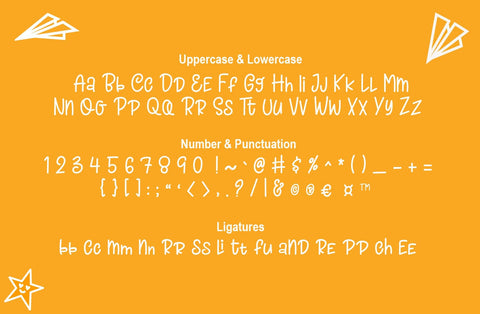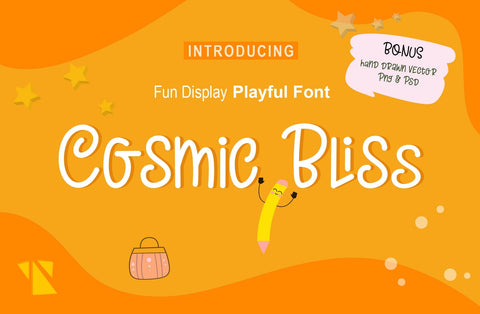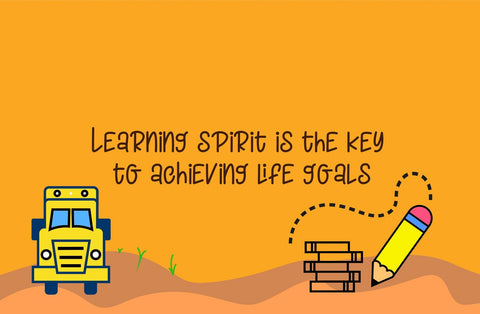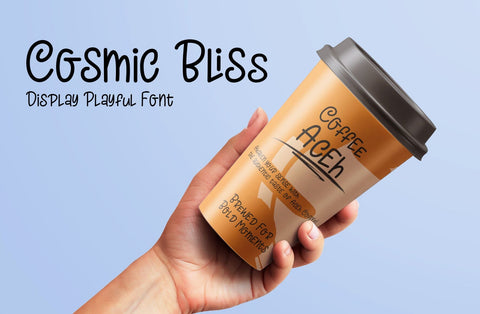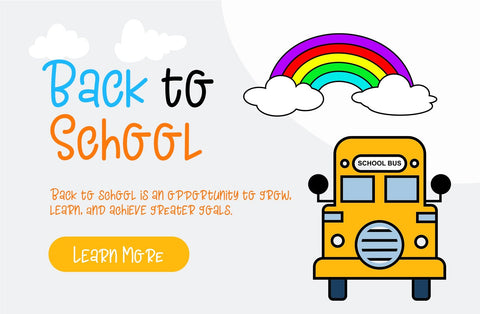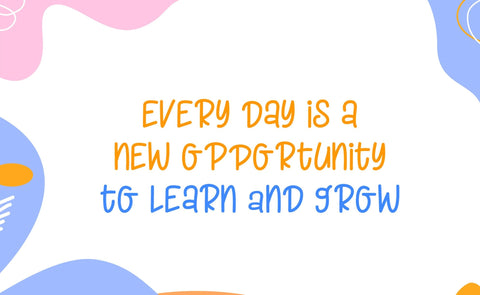
Cosmic Bliss Fun Display Font
The Cosmic Bliss font is a playful, cheerful, and vibrant typeface. Its characters are designed with modern, slightly curved shapes that give off a fun and energetic vibe. This font is perfect for a variety of creative projects, such as children’s designs, event posters full of energy, or branding that wants to highlight a fun and dynamic aspect. It comes with a variety of uppercase letters and numbers, ensuring flexibility in its use. With its artistic and joyful touch, Cosmic Bliss gives a lighthearted yet elegant feel in every detail.
Bonus Vector Back to School Clipart
As a bonus, there is a collection of "Back to School" themed vector clipart, perfect for complementing your designs. This clipart set includes various school elements such as books, backpacks, pencils, globes, chalkboards, and more, all illustrated in a colorful and fun style. Each element is created in vector format, allowing you to resize them without losing quality. This clipart collection is ideal for designing school posters, event invitations, or promotional materials for back-to-school themes filled with excitement and creativity.